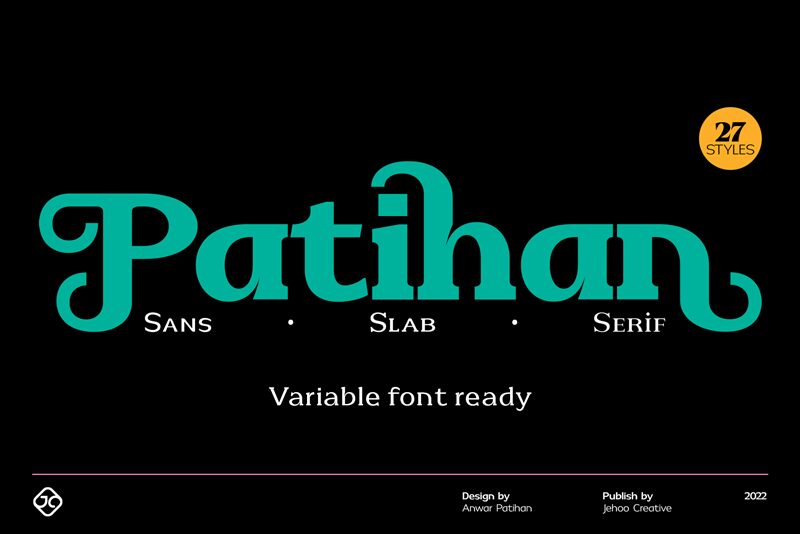
Patihan Slab Medium, a striking slab serif font crafted by Jehoo Creative, exudes a captivating blend of modernity and timelessness. Its robust, yet refined letterforms command attention, conveying a sense of strength and stability. The font's sharp, geometric edges are tempered by gentle curvatures, creating a harmonious balance that is both visually appealing and eminently readable.
Patihan Slab Medium's versatility makes it a compelling choice for a wide range of design applications. Its bold presence lends itself well to headlines, logos, and impactful branding, while its legibility ensures seamless integration into body text and longer-form content. Whether in print or digital media, the font's versatility shines, allowing designers to craft engaging and memorable typographic compositions.
Patihan Slab Medium